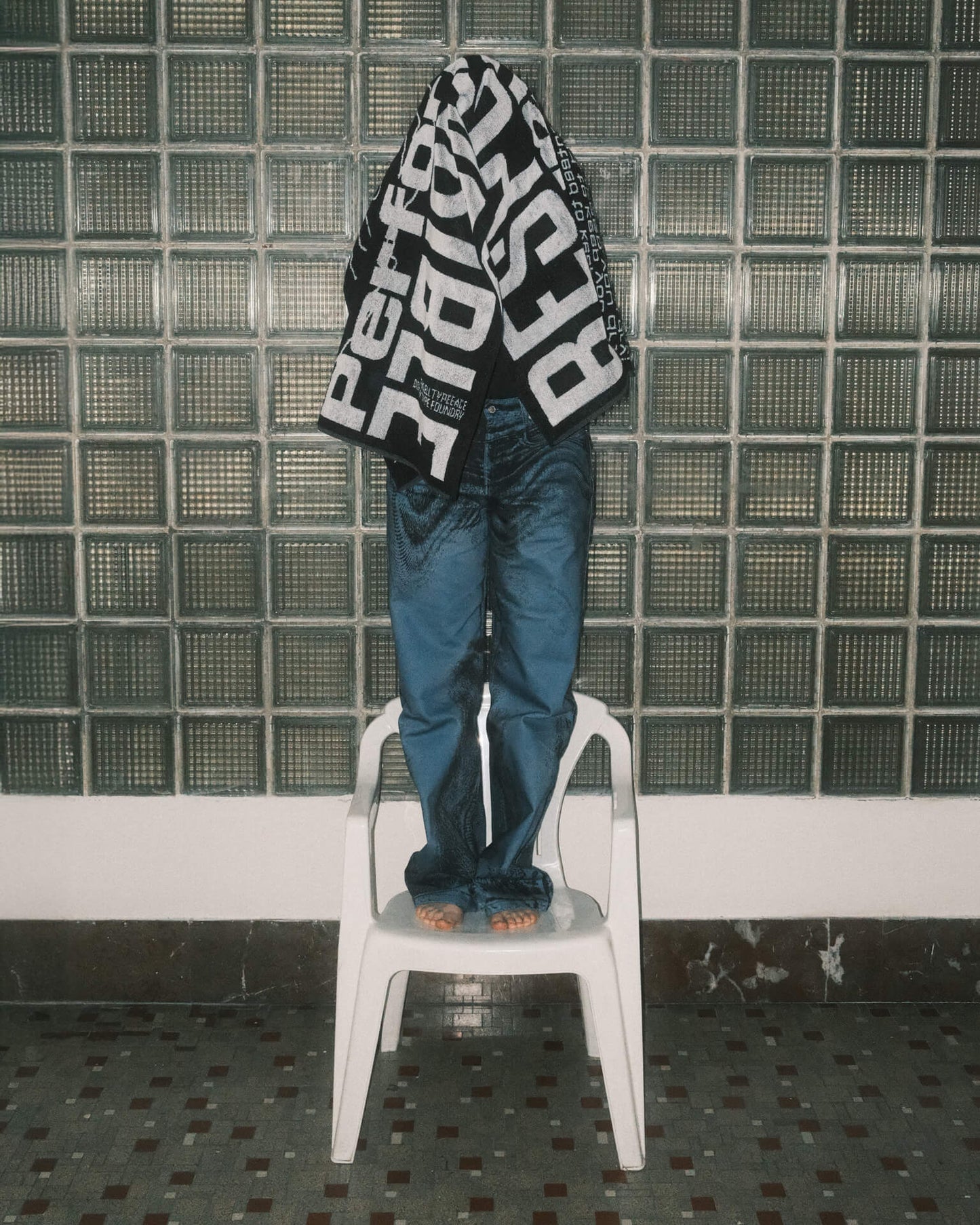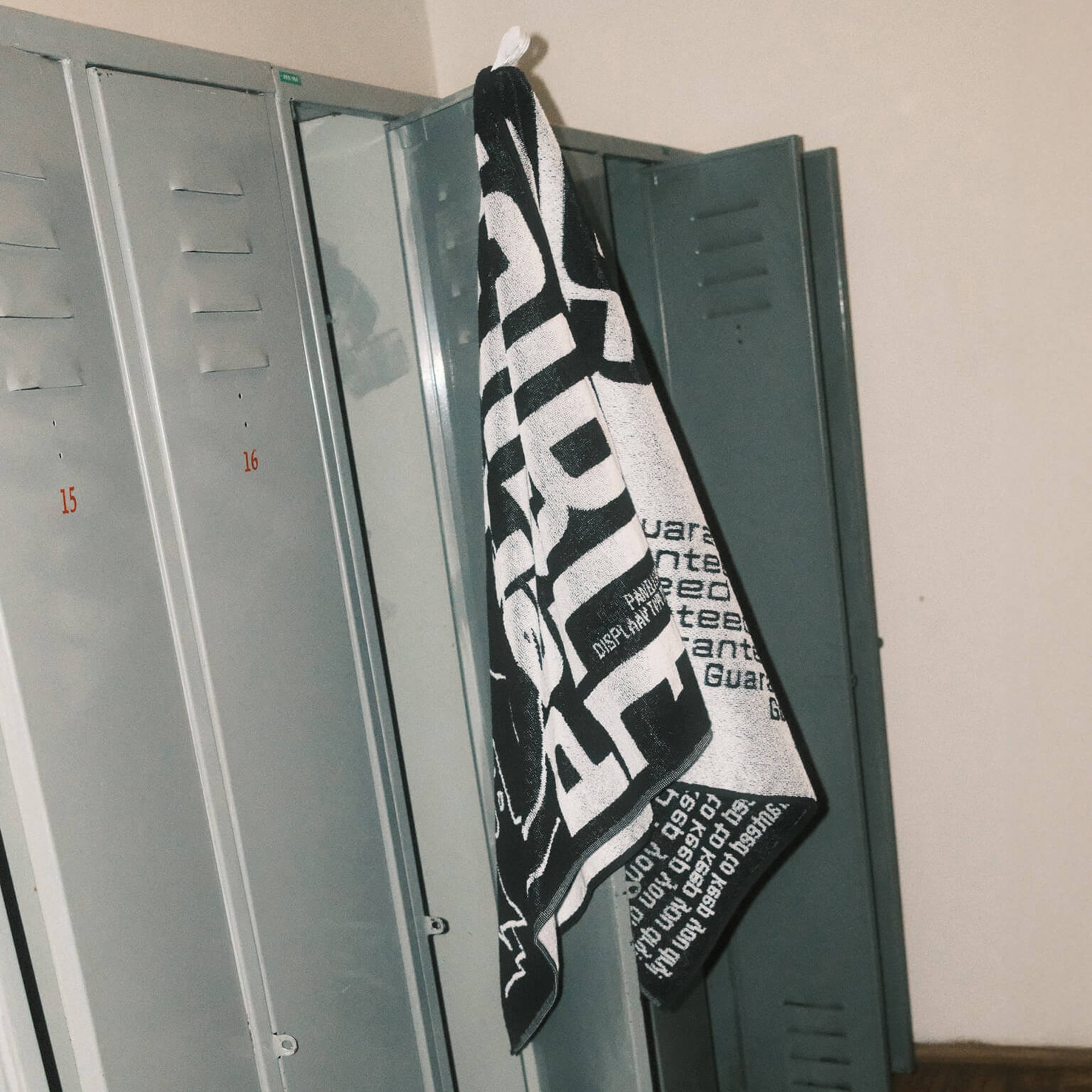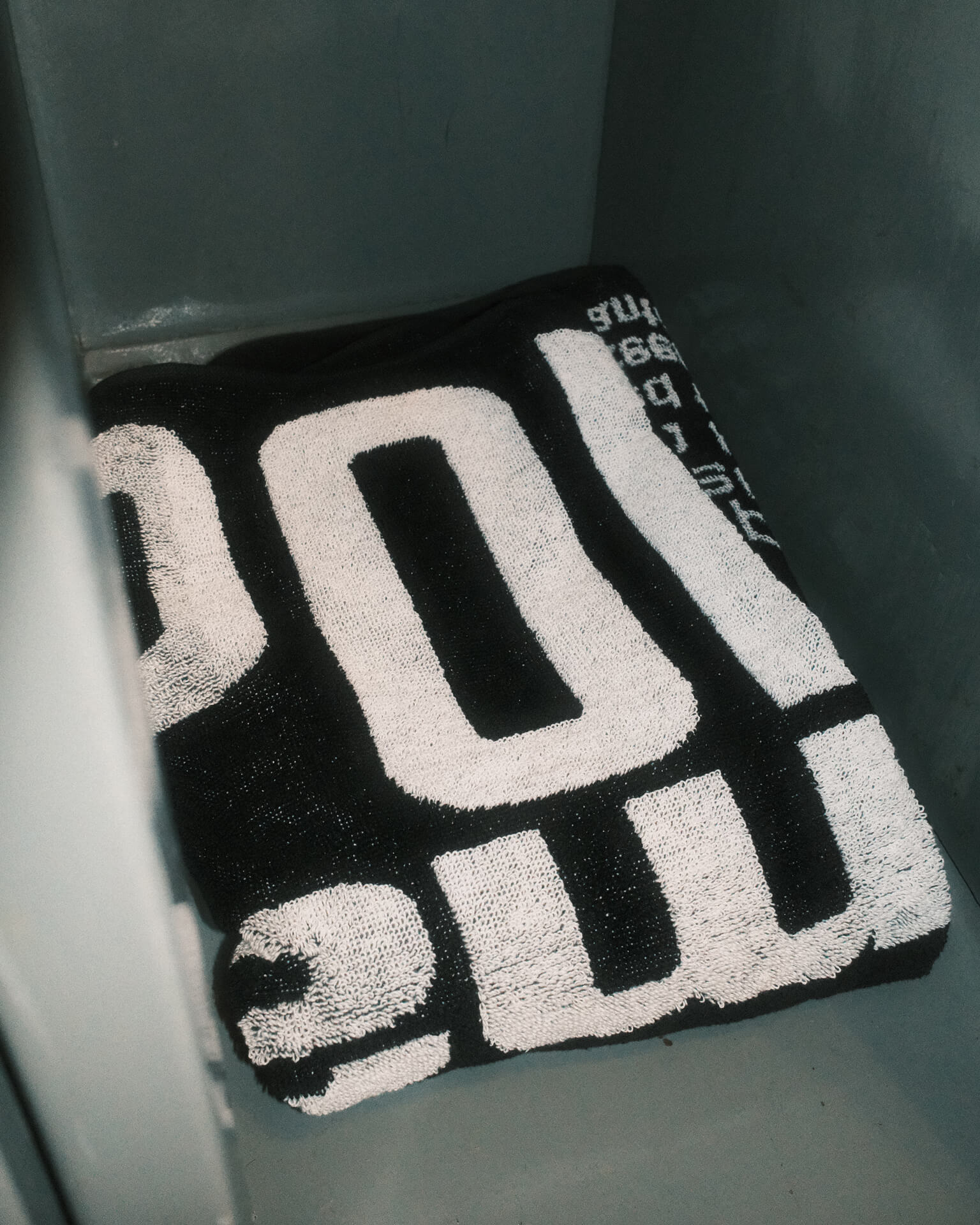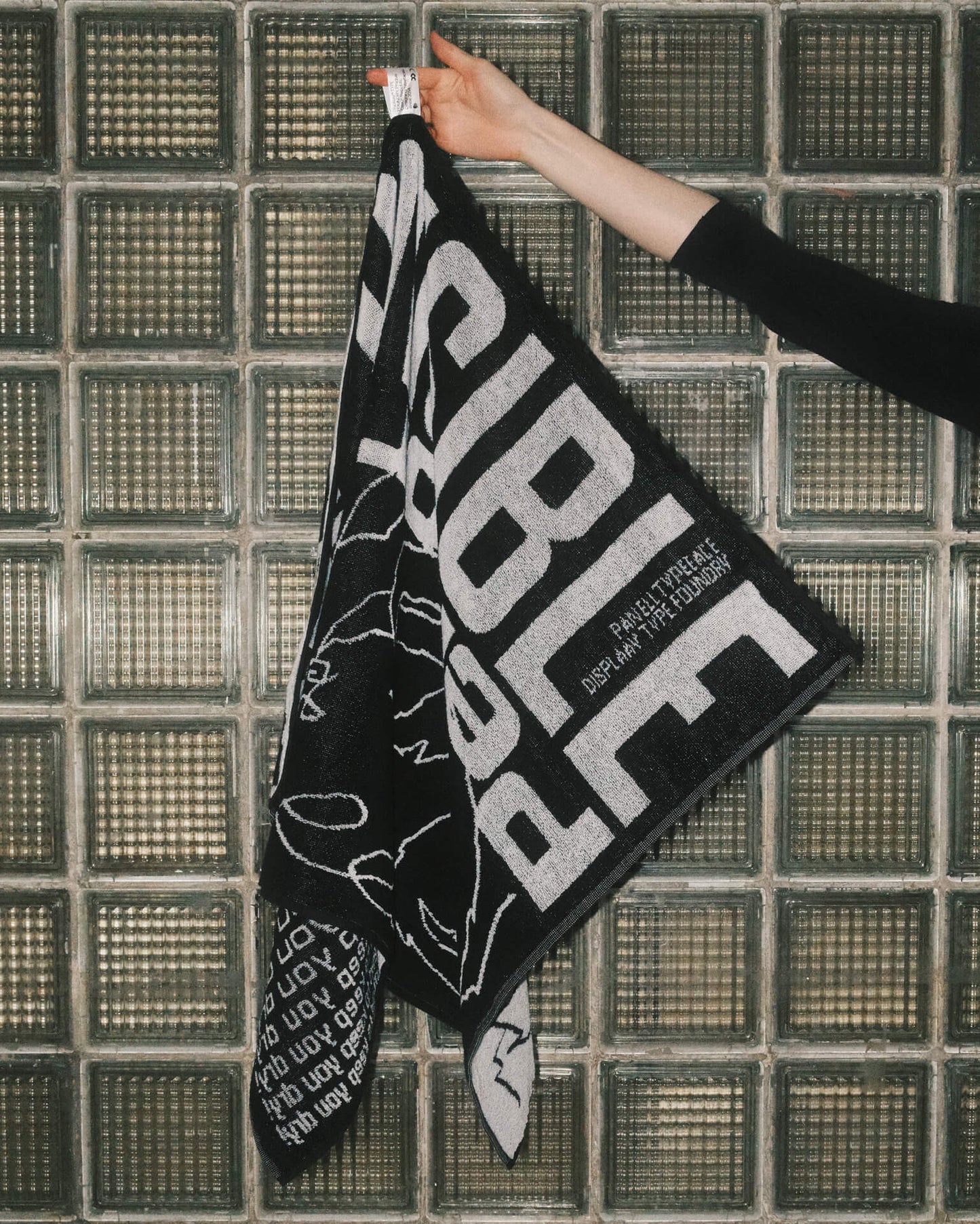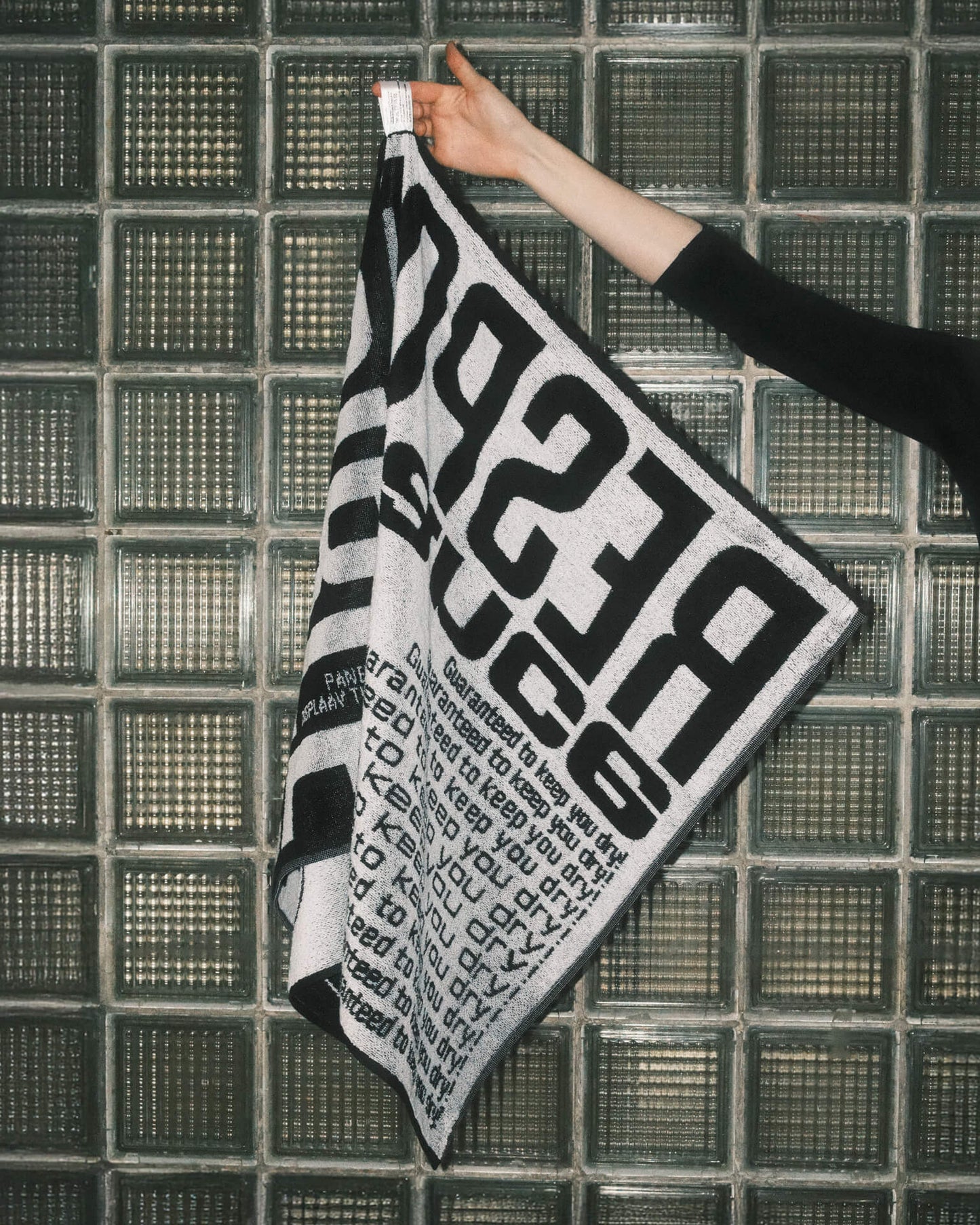
Panell TOWEL
What else would you expect from Panell and its towel than responsible performance? Bold black and white, ready to hang out poolside. And it keeps your style anything but dry.
Font in use: Panell